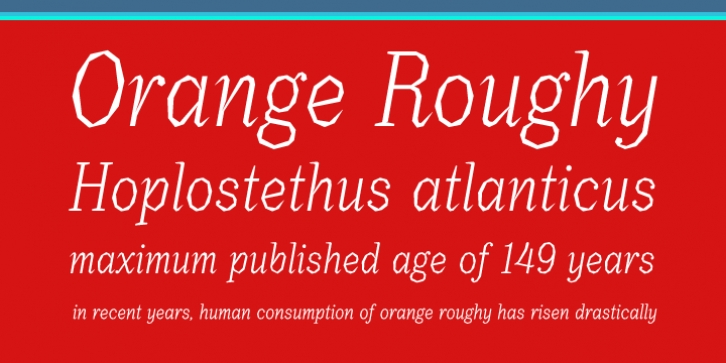
Lan Huang
Orange Roughy
is an italic typeface without curves. It serves well as a display face with its unapologetic forms. Designed with legibility in mind, it’s also suitable for small body text.